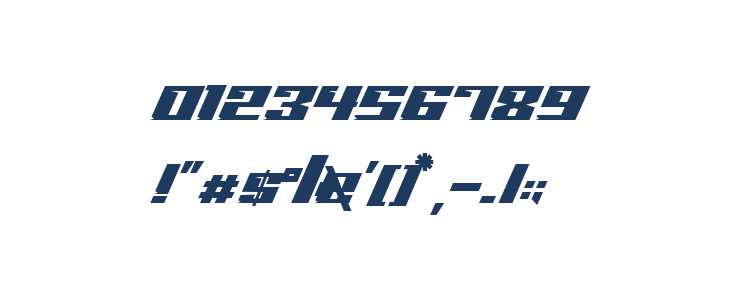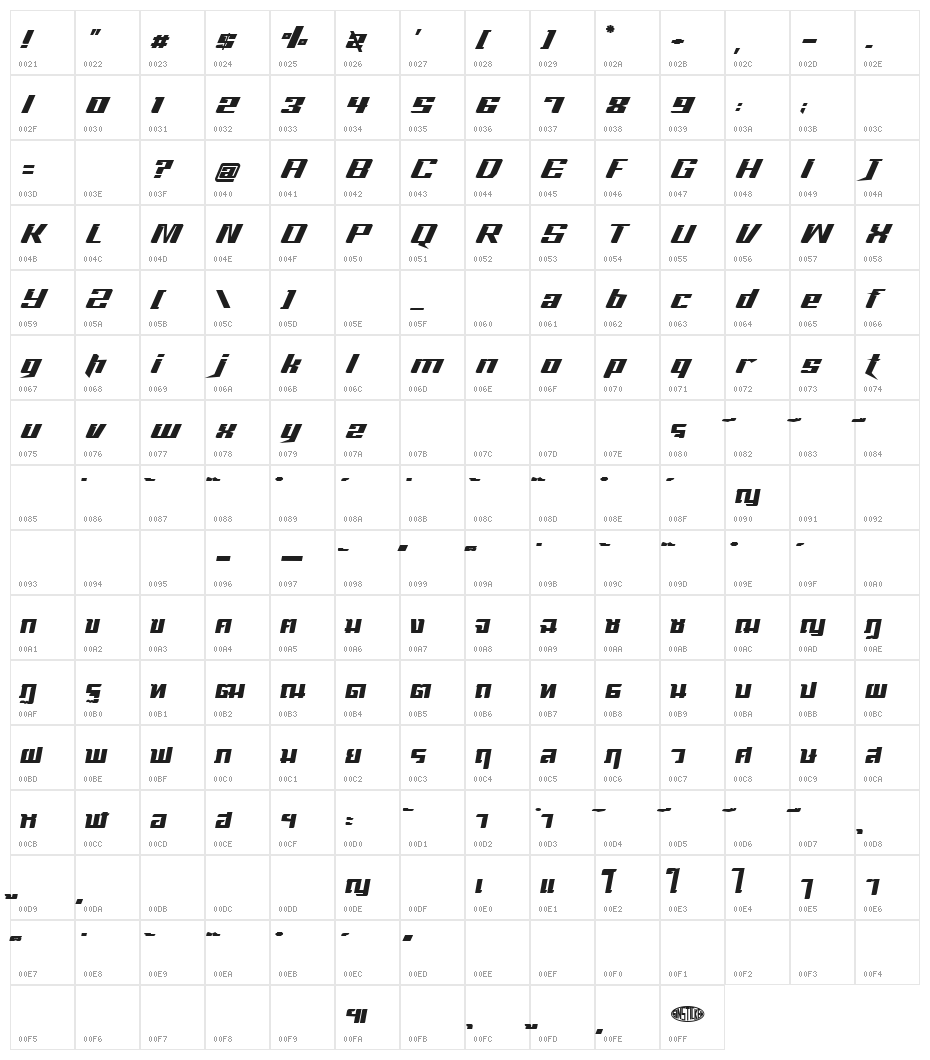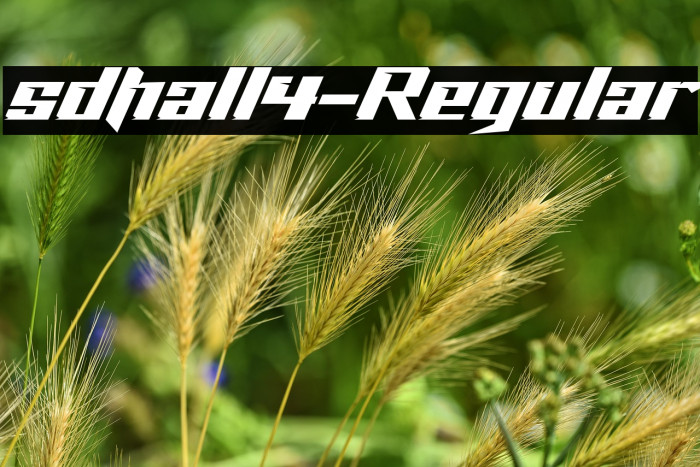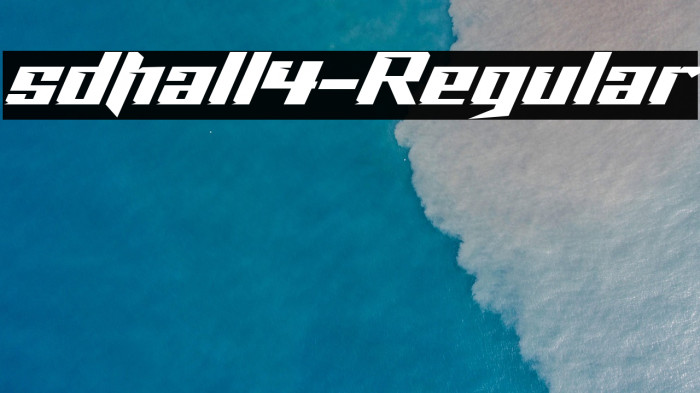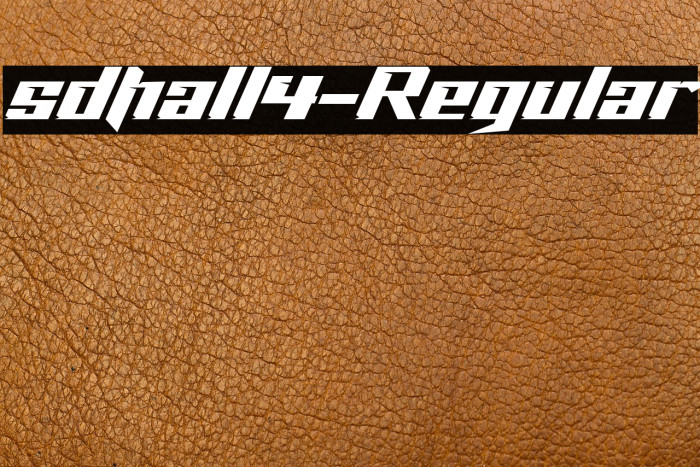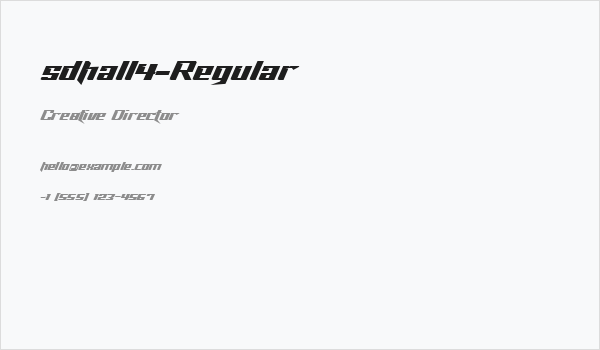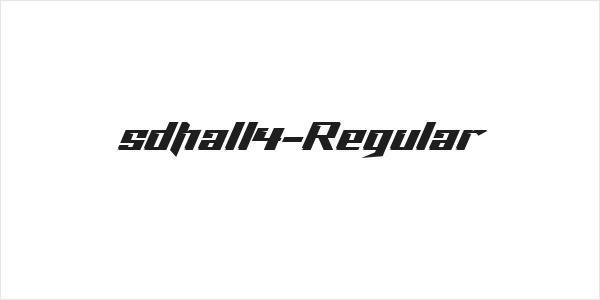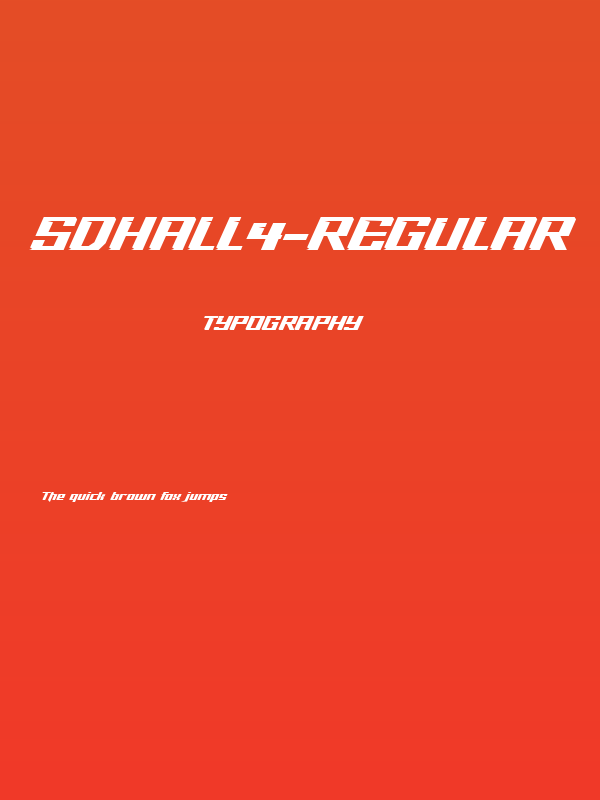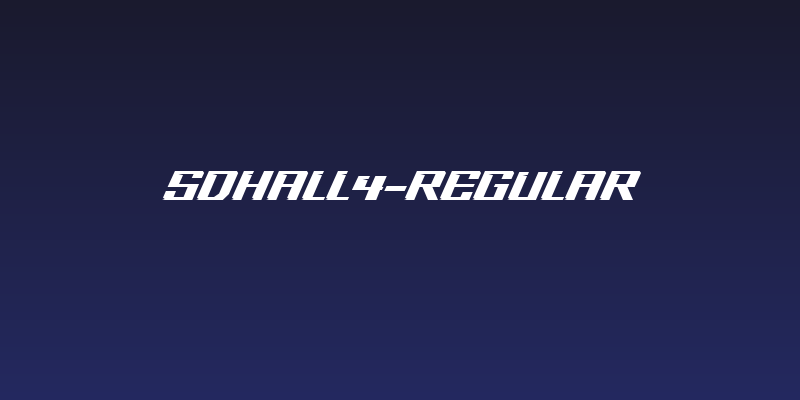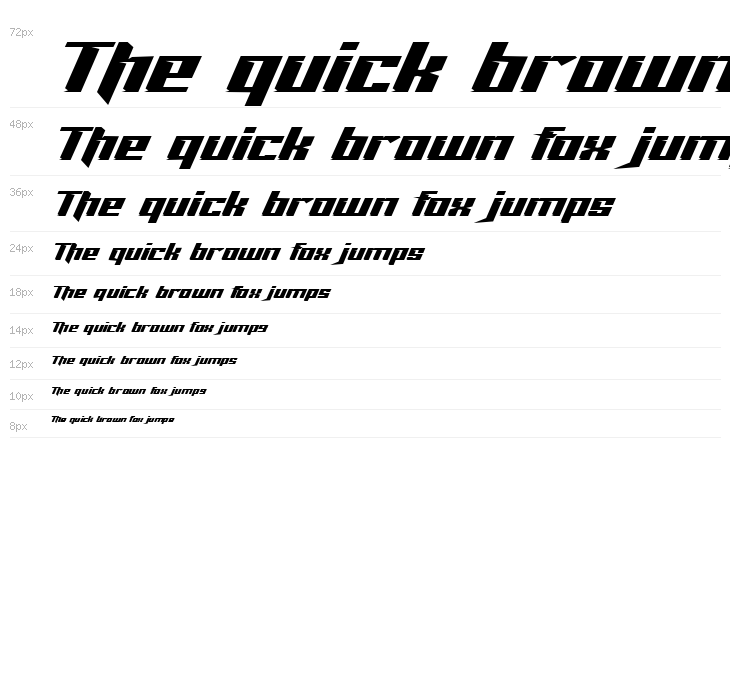
sdhall4-Regular Font
sdhall4-Regular Description
This font exhibits a bold and dynamic style with sharp, angular edges and a slightly italicized slant, giving it a sense of movement and energy. The uppercase and lowercase letters maintain a consistent geometric structure, while the numbers and special characters are designed to complement the overall aesthetic. The font's aggressive and modern appearance makes it suitable for projects that require a strong visual impact.
| Proposed Projects | Ideal for sports branding, action movie posters, video game titles, and dynamic logo designs. |